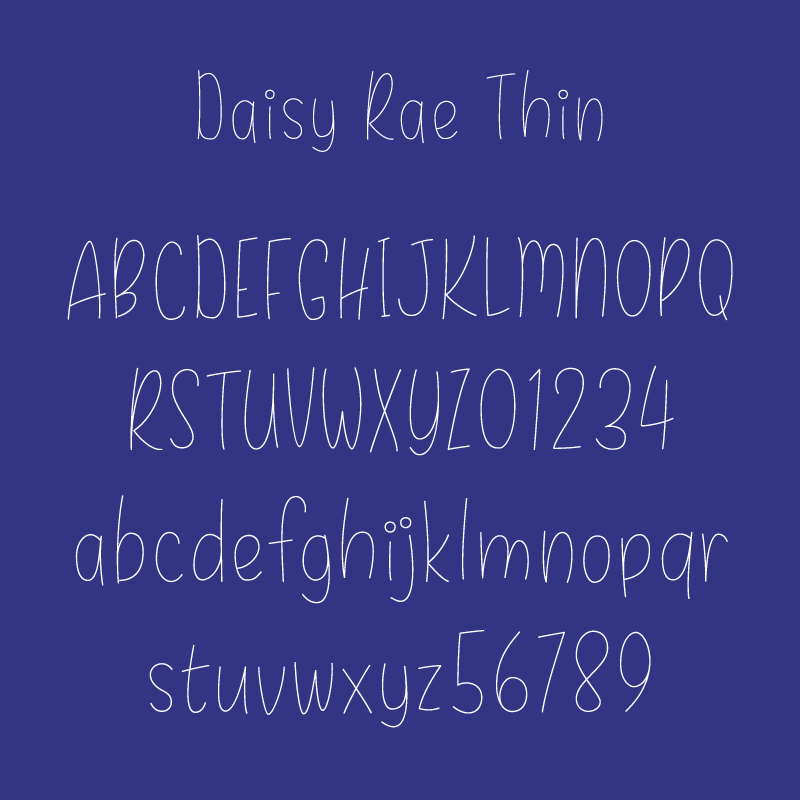
Font name: | Daisy Rae |
Author: | Russ McMullin |
Note by Russ McMullin | |
This is the result of my desire to create something simple, fun, and legible. |